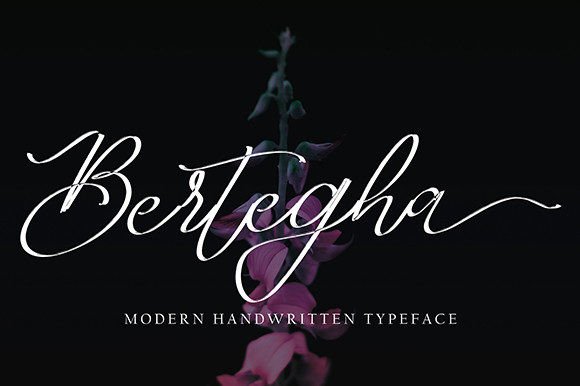
The Elegance of Bertegha Font: A Designer’s Delight
I’ll never forget the time I was working on a project for a luxury brand, tasked with creating an elegant logo that exuded sophistication. As I scrolled through my font library, I stumbled upon Bertegha – a beautiful script font that caught my eye. I was immediately drawn to its flowing lines, refined curves, and classic charm. In this article, I’ll share my experience with Bertegha, its features, and how to make the most of it in your designs.
An Honest Review of Bertegha Font
Bertegha is an elegant script font perfect for many different projects, including quotes, logos, blog headers, posters, branding, letters, invitations, stationery, and more. Here’s what I love about it:
• ✨ Elegant and refined design, perfect for luxury brands and high-end projects
• 🎉 Extensive character set, including glyphs, stylistic alternates, and OpenType features
While Bertegha is an excellent font, it’s not without its quirks:
• 🤔 Some users may find the font a bit too ornate for certain projects, such as body text or casual social media posts
• ⚠️ Limited availability of bold or condensed weights, which may limit its use in certain design scenarios
The Story Behind Bertegha Font
Bertegha was designed by a talented typographer who drew inspiration from classic calligraphy and elegant script fonts. The goal was to create a font that exudes sophistication, refinement, and luxury. Whether you’re working on a high-end brand project or a creative hobby, Bertegha is an excellent choice.
What type of projects is Bertegha suitable for? Bertegha is perfect for luxury brands, high-end projects, formal events, and creative endeavors that require an elegant touch.
Can I use Bertegha for body text? While Bertegha is highly legible, it’s recommended for headings, titles, or emphasis rather than body text.
Does Bertegha support OpenType features? Yes, Bertegha supports OpenType features, including glyphs, stylistic alternates, and more.